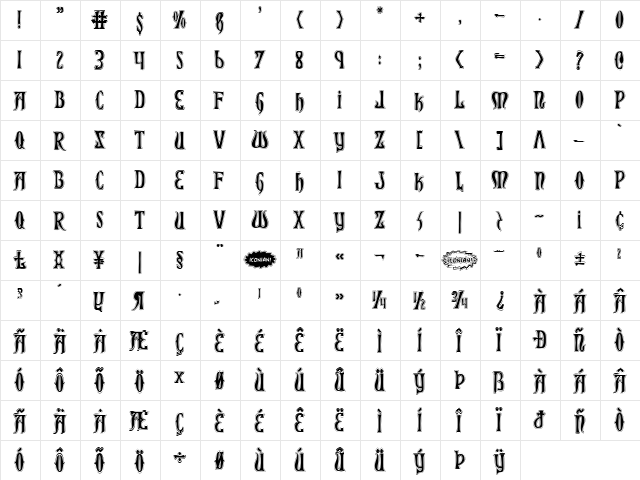
Xiphos College College
Design Context for Xiphos College Typeface
Xiphos College has the bold swagger of sports branding: strong, assertive letterforms designed to dominate headlines and jerseys alike.
Built for sports team identities, athletic apparel, event posters, and high-energy promotional material.
Pro Tip: Xiphos College thrives on contrast — try it large, bold, and tight against a clean background for maximum visual impact.